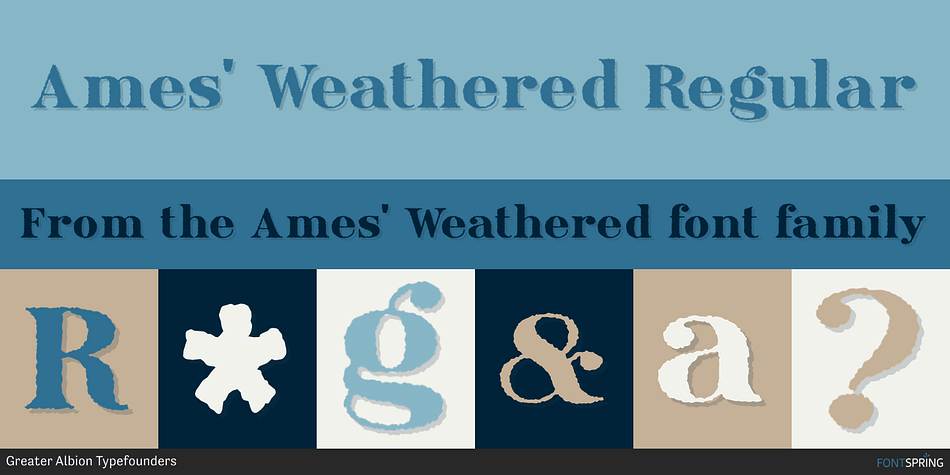
Ames' Weathered Regular
Ames' Weathered is a historical and display serif font published by Greater Albion Typefounders.
Ames’ Weathered is the ‘antique’ accompaniment to our Ames’ typeface families.
Ames’ Weathered is the ‘antique’ accompaniment to our Ames’ typeface families.  It has that ‘tumbled’, weather knocked about look.  Just the thing for posters, headings and signage where there’s a need to suggest age.